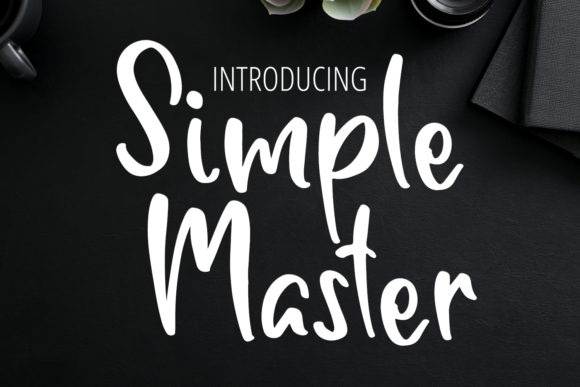
About Simple Master Font
Simple Master is a fresh and relaxed handwritten font. Fall in love with its incredibly versatile style and use it to create gorgeous wedding invitations, beautiful stationary art, eye-catching social media posts, and much more!